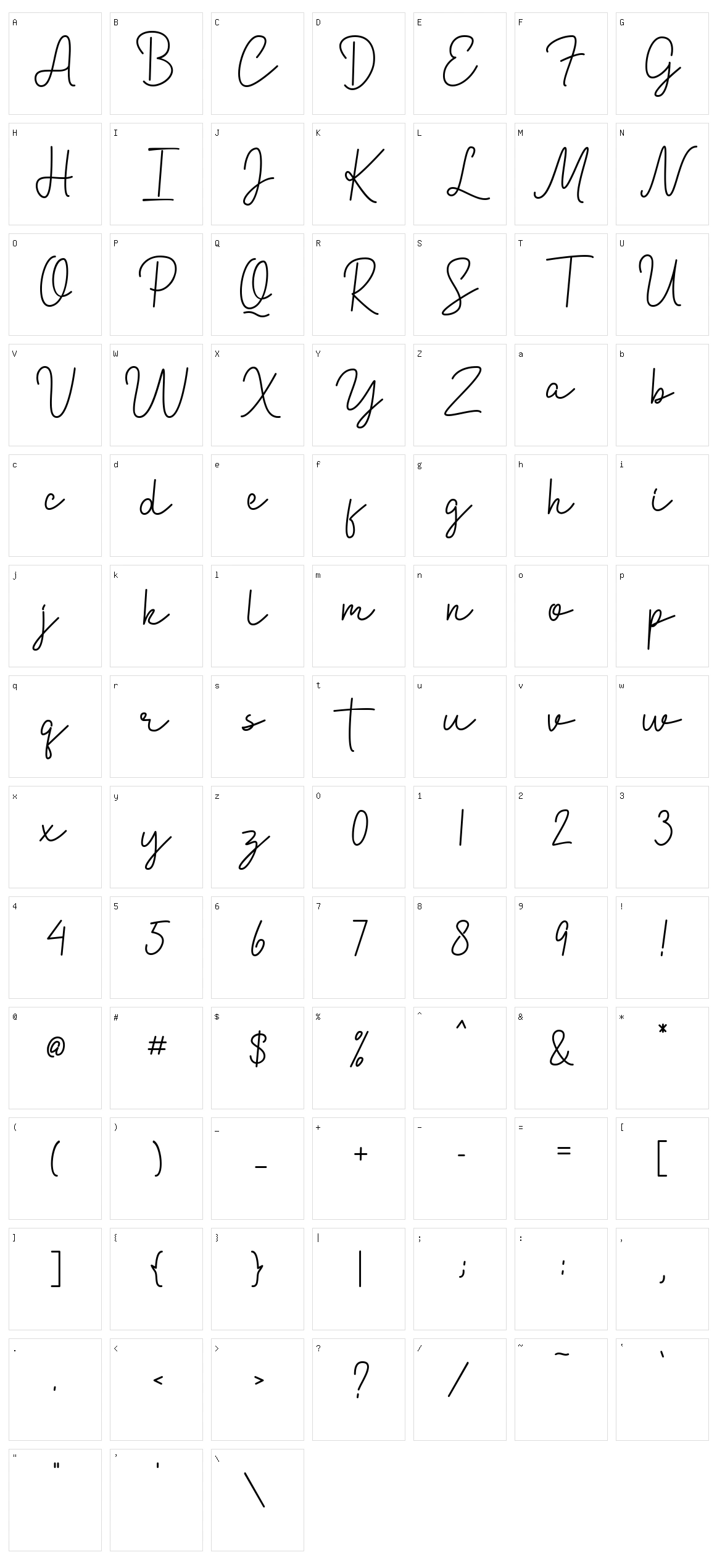
The free font Milles is carefully designed by Claudia, showcasing a thoughtful balance of creativity and usability and falls under the Script font style. When you download the ZIP file, it contains only 45.02 KB of font files, making it lightweight and quick to download. Please review the license details below to understand permitted usage and distribution rights. If license information is not available, we recommend using this font for personal projects only or contacting the author directly for commercial usage permissions.